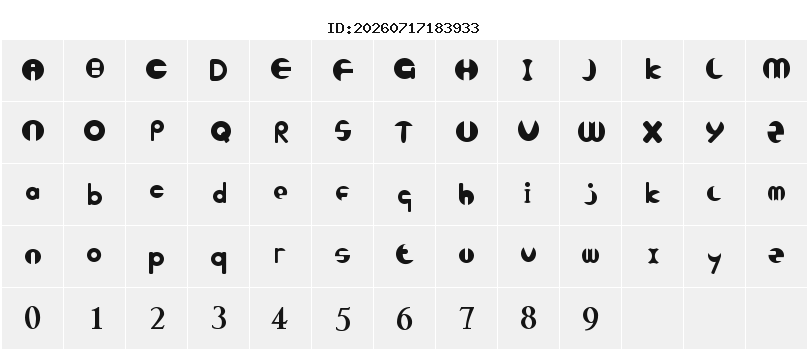
• Font Name: Berni
• Designer: N.Kishore
About Berni.ttf
Berni.ttf is a modern, elegant sans-serif font designed for ultimate readability and visual harmony. Perfect for branding, headlines, web design, and print materials.